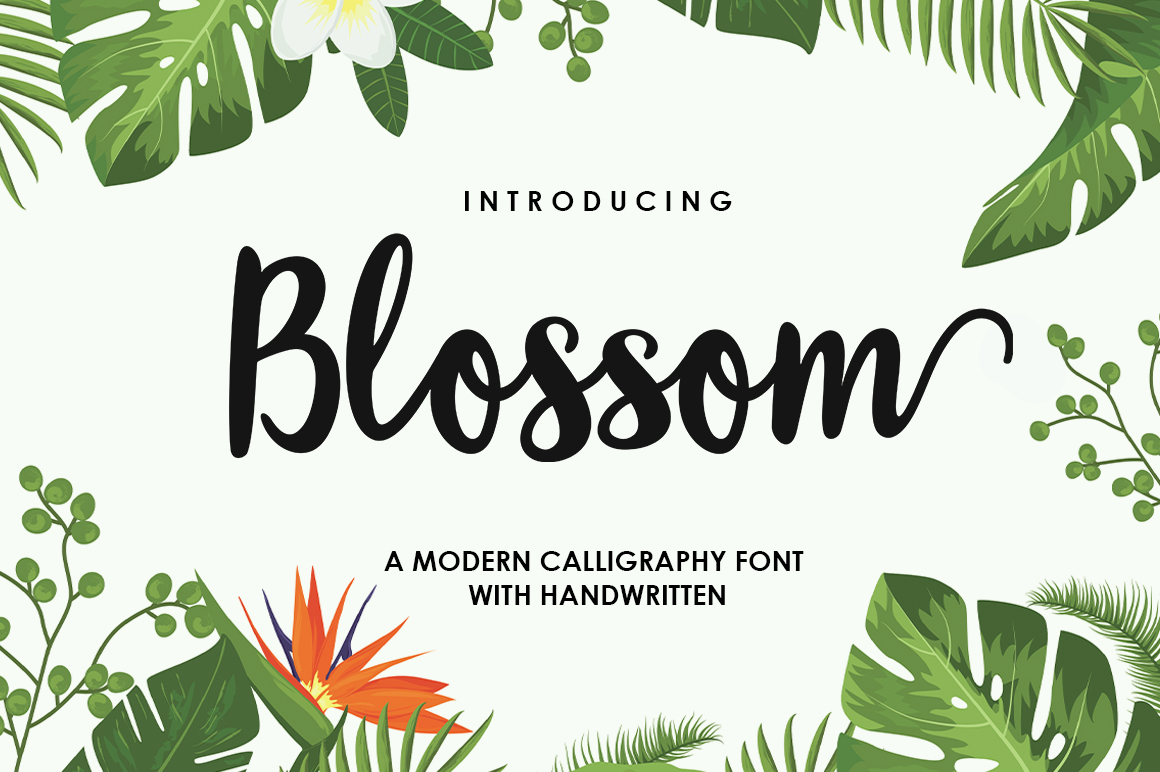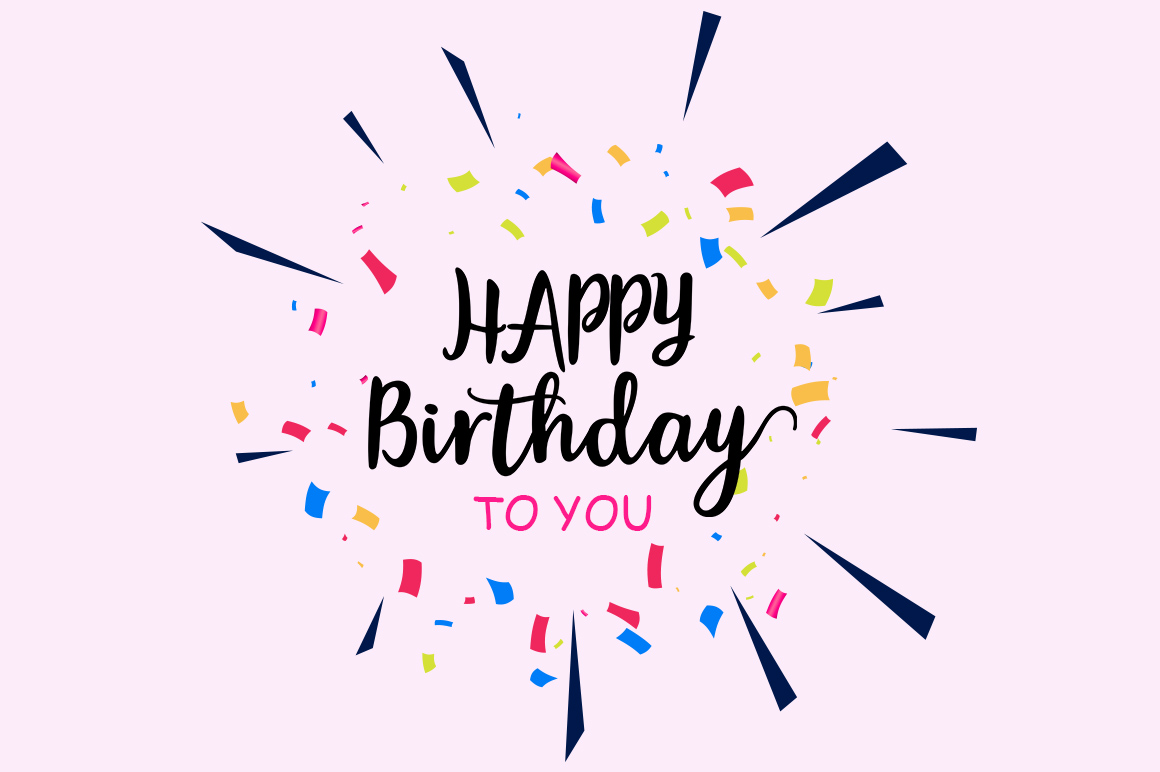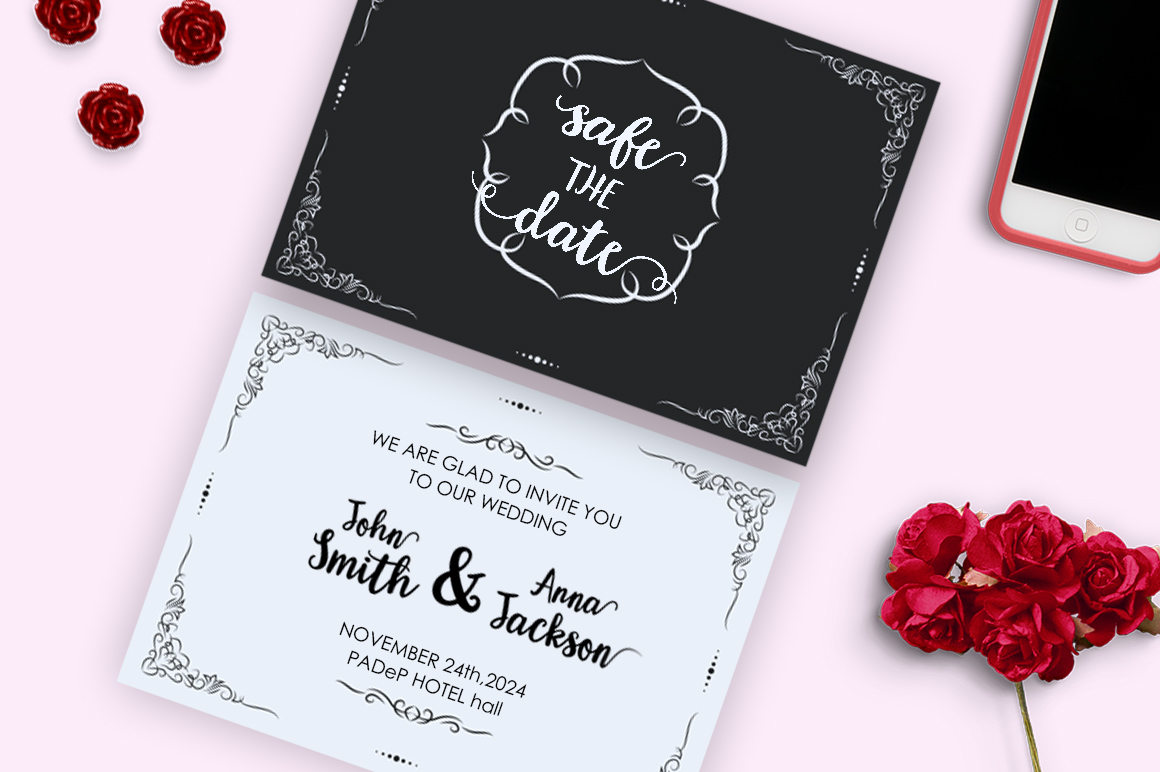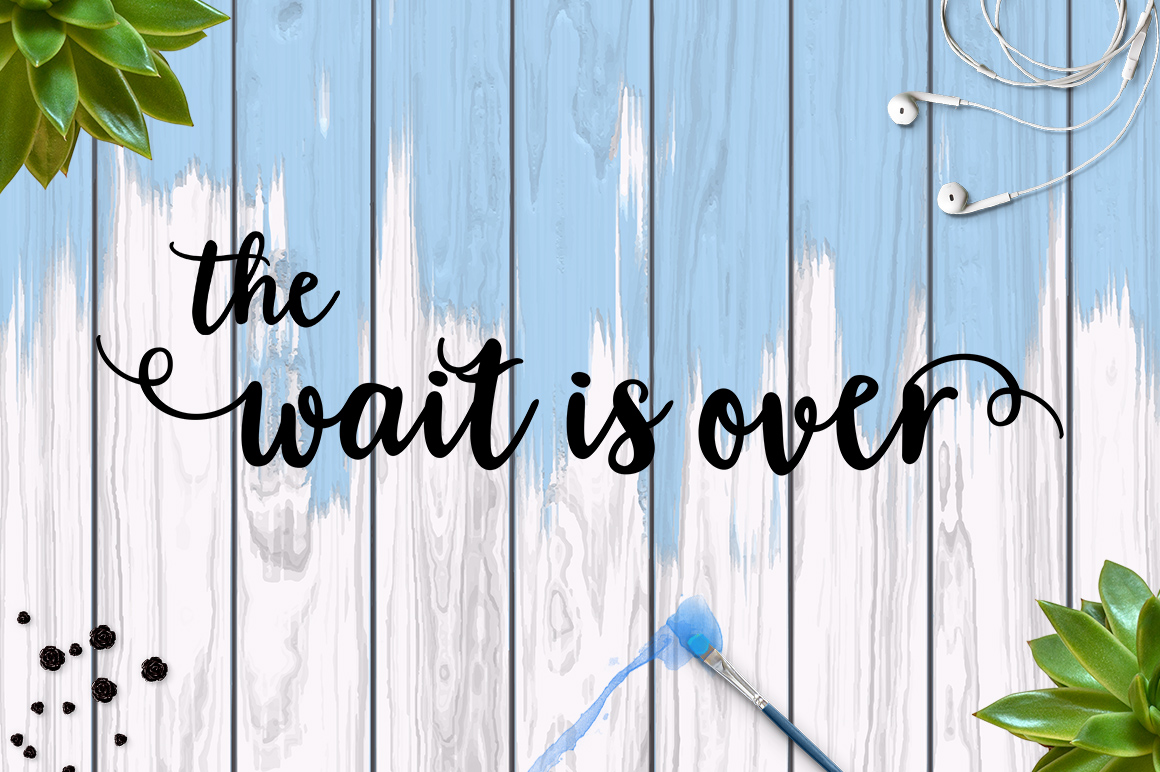
The Blossom Script Font  Font is here to transform your projects with its distinctive character and style. Blossom Script is a modern typeface that features stunning alternate characters, such as initial and end swashes.
It’s the perfect script to create jaw-dropping designs and helping you to make your work stand out.
Blossom Script excels in applications requiring a touch of elegance and sophistication, such as logos, wedding invitations, and short, impactful headlines. Its swashes add a unique flair to greeting cards and social media graphics. However, its decorative nature makes it unsuitable for body text or UI elements where readability is paramount; long blocks of text set in Blossom Script would be difficult to read.
For optimal visual harmony, pair Blossom Script with a clean sans-serif like Montserrat for a modern feel, or a classic serif like Garamond for a more traditional aesthetic. A geometric sans-serif such as Futura could also create a striking contrast, depending on the desired overall effect.
Blossom Script projects a feeling of refined modernity, balancing playful energy with sophisticated charm. Its versatility allows for diverse applications, but thoughtful pairing is key to maximizing its impact.